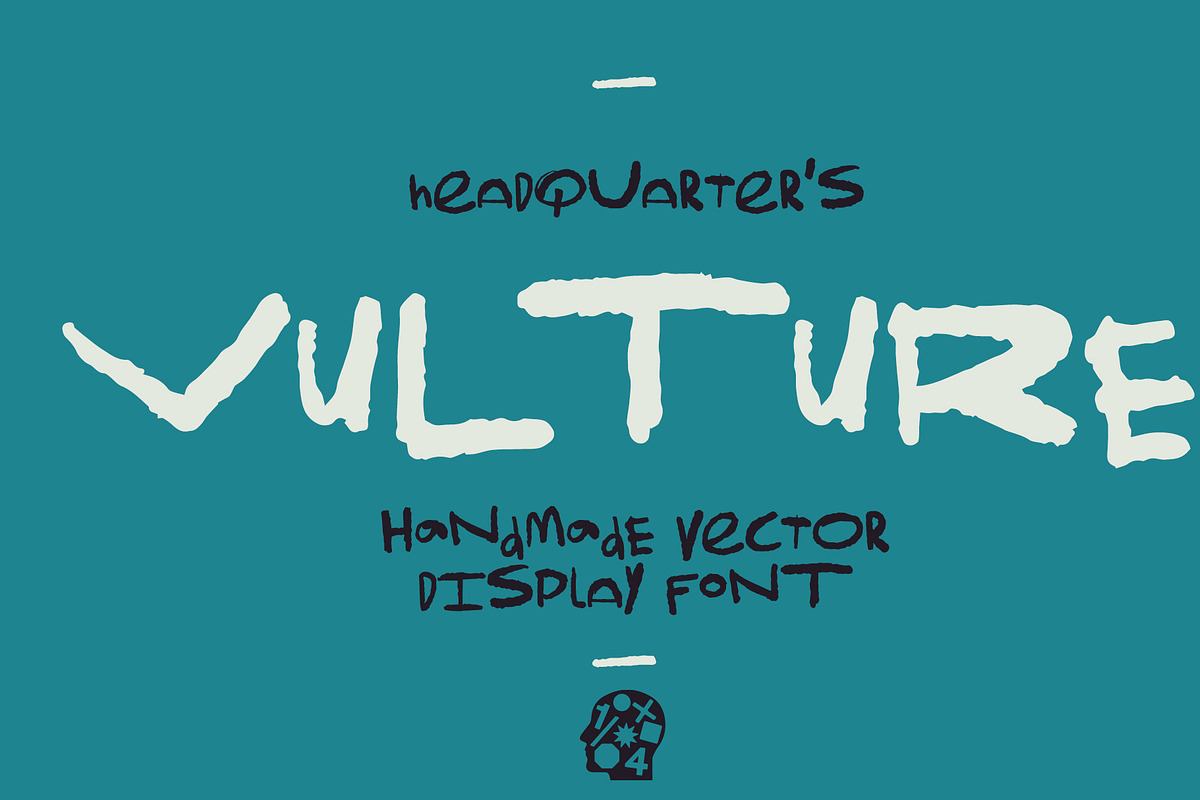
You must purchase this font for commercial use. However, you can download Vulture Font Free Download for testing purposes. Vulture is a bold, edgy display font designed to make a statement. With its strong lines, sharp angles, and aggressive personality, it’s perfect for posters, sports branding, video game titles, music covers, and modern apparel design where impact and attitude are essential.
Crafted for maximum visual power, Vulture brings a raw and fearless energy to any design. Whether used in uppercase headlines or stylized logos, this font commands attention and sets a bold tone. Its unique character shapes and rugged vibe make it especially suitable for high-intensity, urban, or youth-oriented projects.